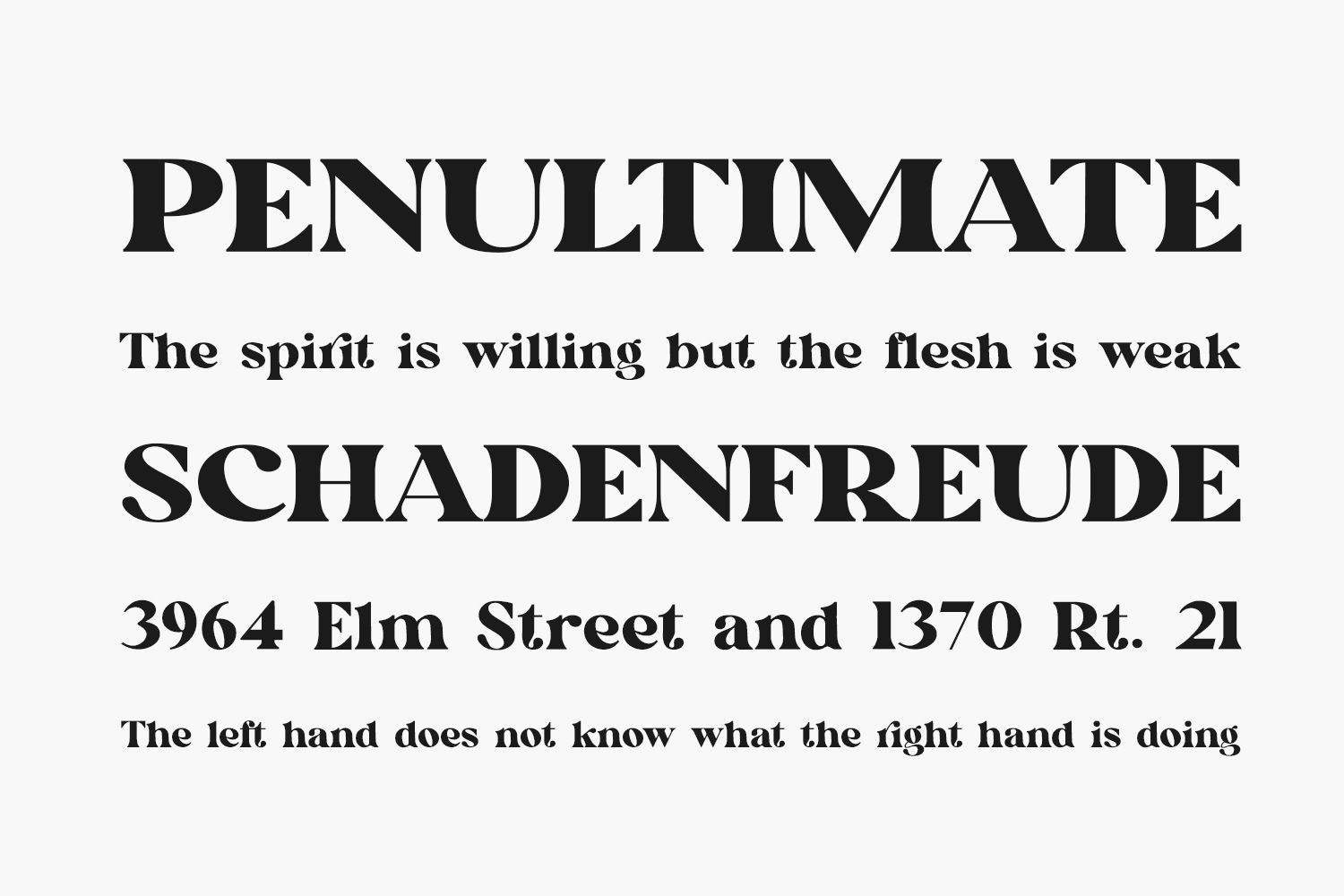
Victorian Britania is a bold and elegant serif font designed by UI Creative to bring historical charm and strong visual presence to your creative projects. With its structured letterforms, high contrast between thick and thin strokes, and classic detailing, this free decorative typeface works perfectly for crafting vintage logos, period-themed posters, brand identities, packaging labels, and more. Available in TTF format — ideal for designers seeking a timeless serif style that blends old-world elegance with modern clarity.
Why Choose Victorian Britania?
- Vintage-Inspired Style: Combines traditional serifs with clean detailing for an authentic 19th-century appearance.
- Ideal for Retro Branding: Perfect for antique shop branding, heritage packaging, or historical visuals needing a classic tone.
Where to Use Victorian Britania?
Victorian Britania shines across a variety of design applications:
- Logos & Badges: Adds character to brand identities for vintage car brands, steampunk studios, or lifestyle brands with a nostalgic tone.
- Packaging Design: Ideal for product labels on whiskey bottles, tea boxes, or artisanal goods requiring a premium touch.
- Poster & Billboard Design: Designed for legibility at a distance — makes headlines pop in event flyers or outdoor advertising.
- Social Media Graphics: Creates bold text overlays for Instagram Stories, TikTok videos, or YouTube banners with a historic appeal.
- Editorial Headers: Stands out in blog headers, magazine covers, and digital banners with a hand-drawn, typewriter-style charm.
Design Tips with Victorian Britania